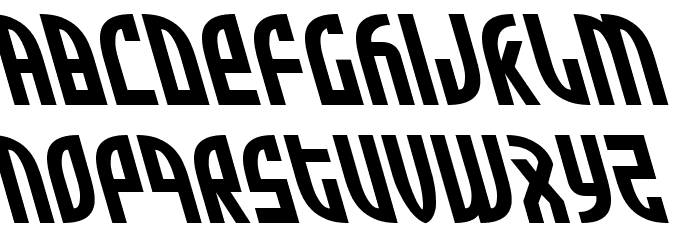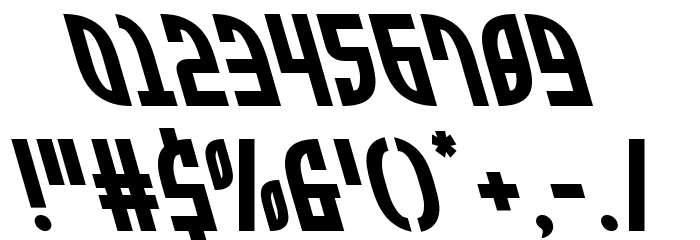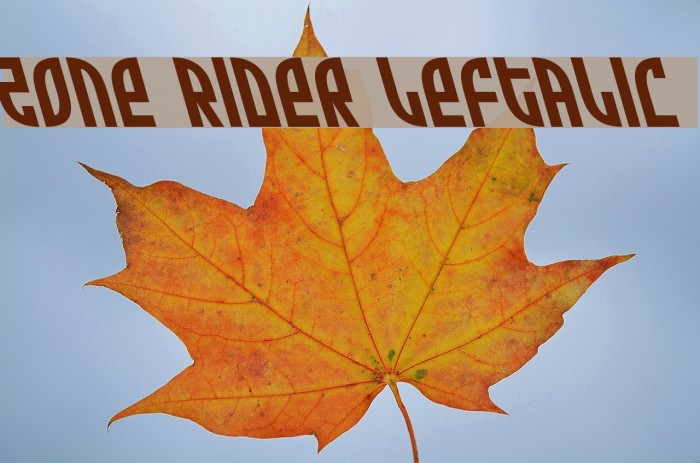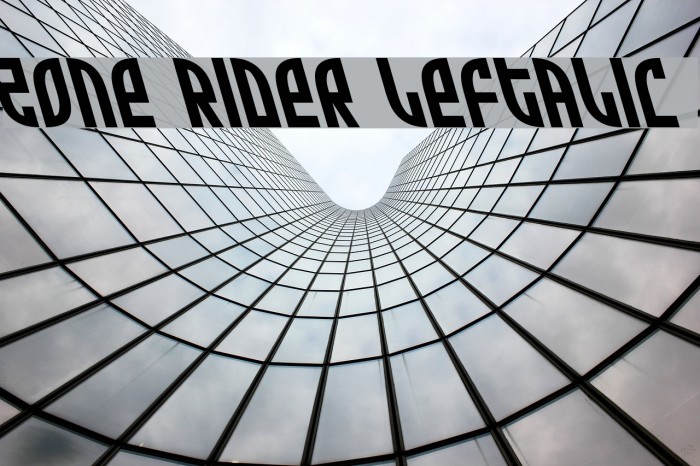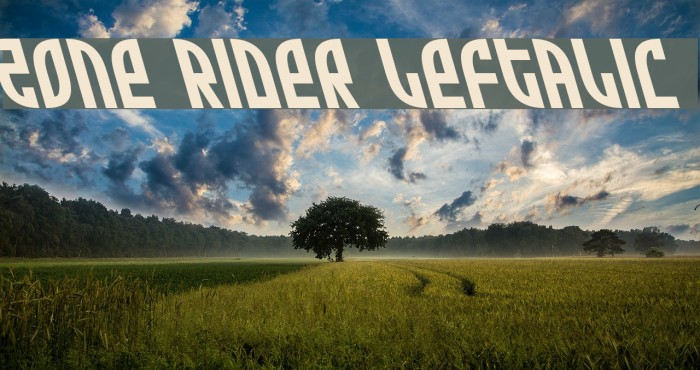
Zone Rider Leftalic Font
This font features a bold and dynamic style with a distinct slant to the left, giving it a sense of movement and energy. The characters are constructed with thick, angular strokes, creating a futuristic and edgy appearance. The uppercase and lowercase letters maintain a consistent design, with sharp edges and a geometric structure. Numbers and special characters follow the same bold and angular theme, ensuring uniformity across all glyphs. The overall design is striking and modern, making it suitable for projects that require a strong visual impact.
A bold, left-italicized font with angular, futuristic design.
- Proposed Projects: Ideal for sci-fi themed posters, video game titles, and edgy branding materials.